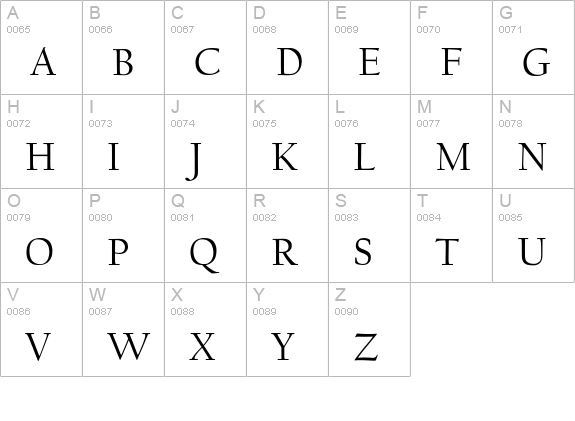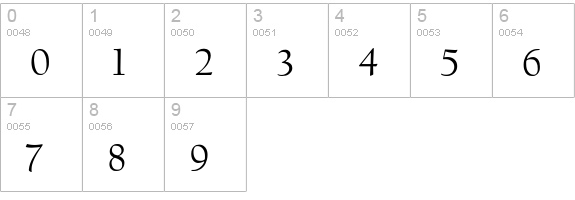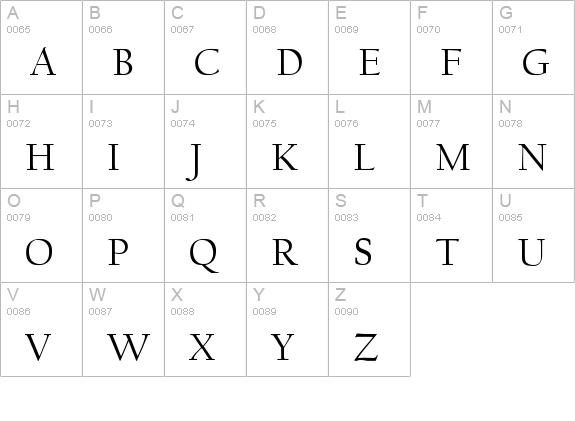
FBCalifornian-Roman Font Details
Introducing FBCalifornian-Roman font, a beautifully crafted typeface that exudes elegance and sophistication. This versatile font is perfect for a wide range of design projects, from branding to editorial design and everything in between. With its classic Roman style and modern twist, FBCalifornian-Roman font is sure to make your text stand out and leave a lasting impression. What's even better is that FBCalifornian-Roman font is available for free download at FontsMarket.com! Yes, you read that right - this stunning font can be yours at no cost, allowing you to enhance your creative projects without breaking the bank. So why wait? Download FBCalifornian-Roman font today and elevate your designs with its timeless charm and sophistication.